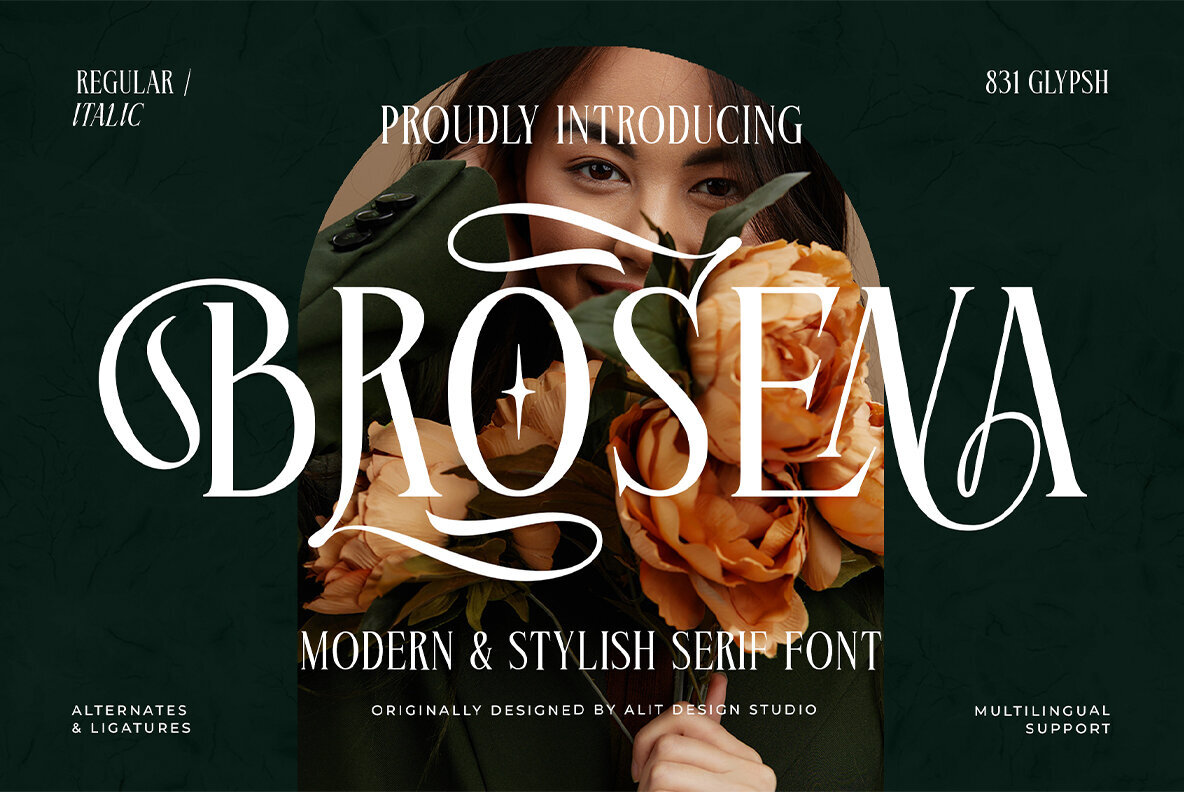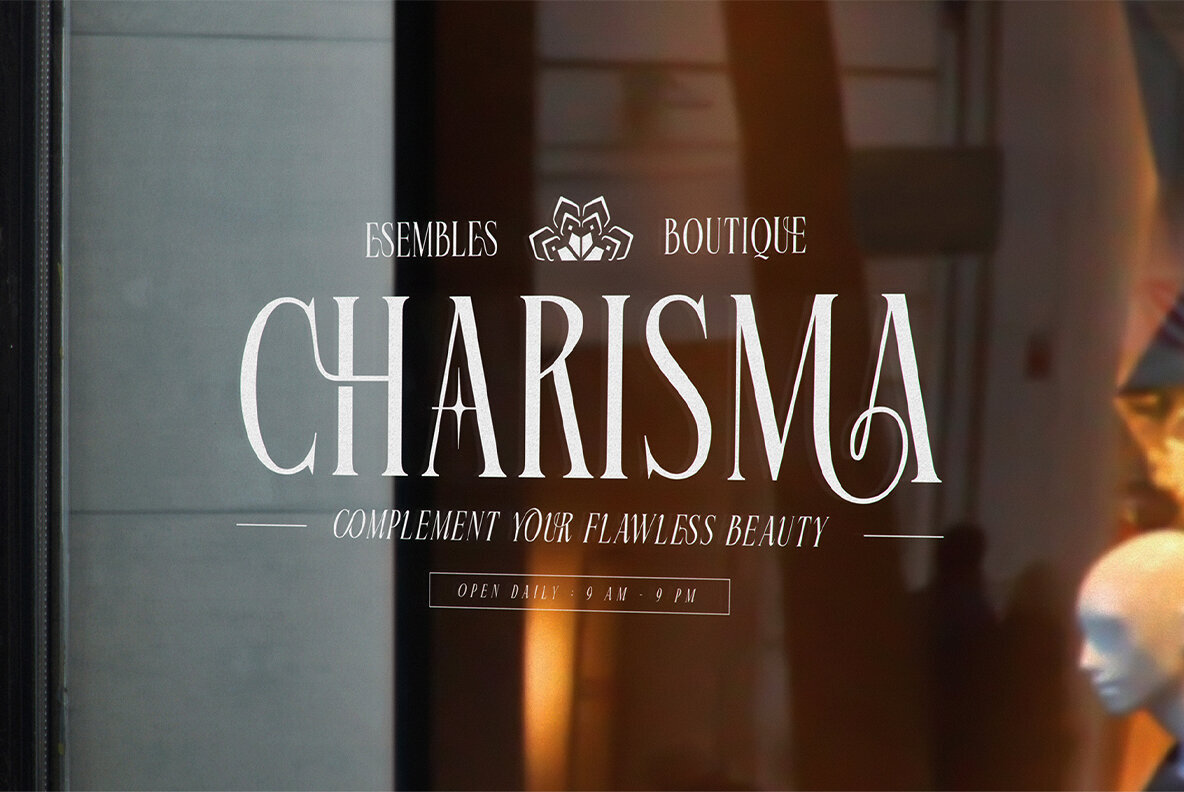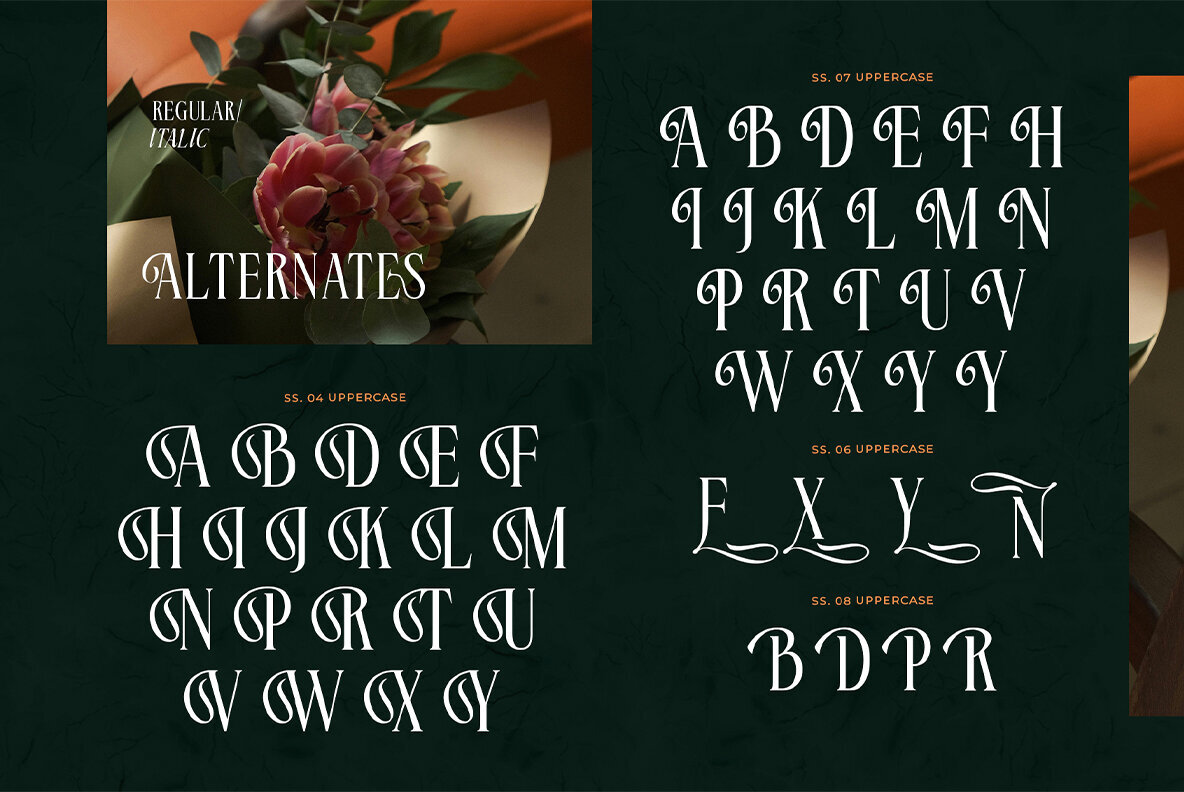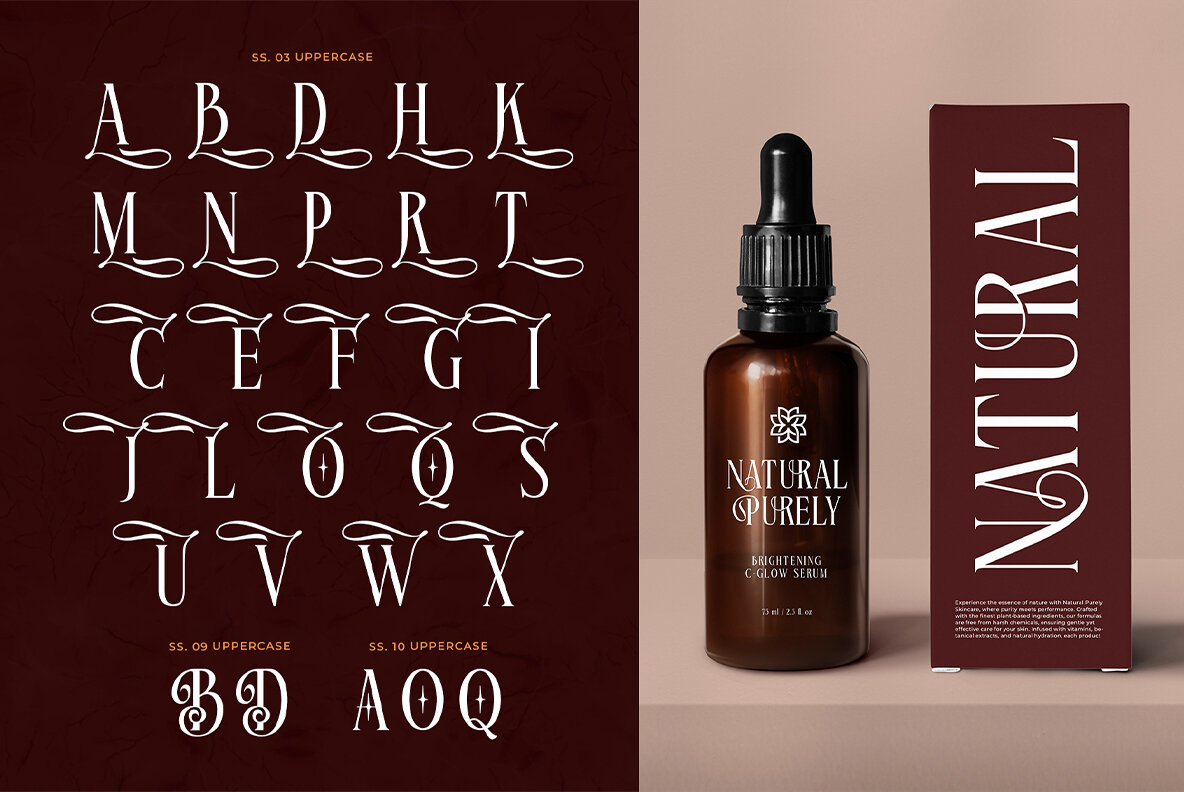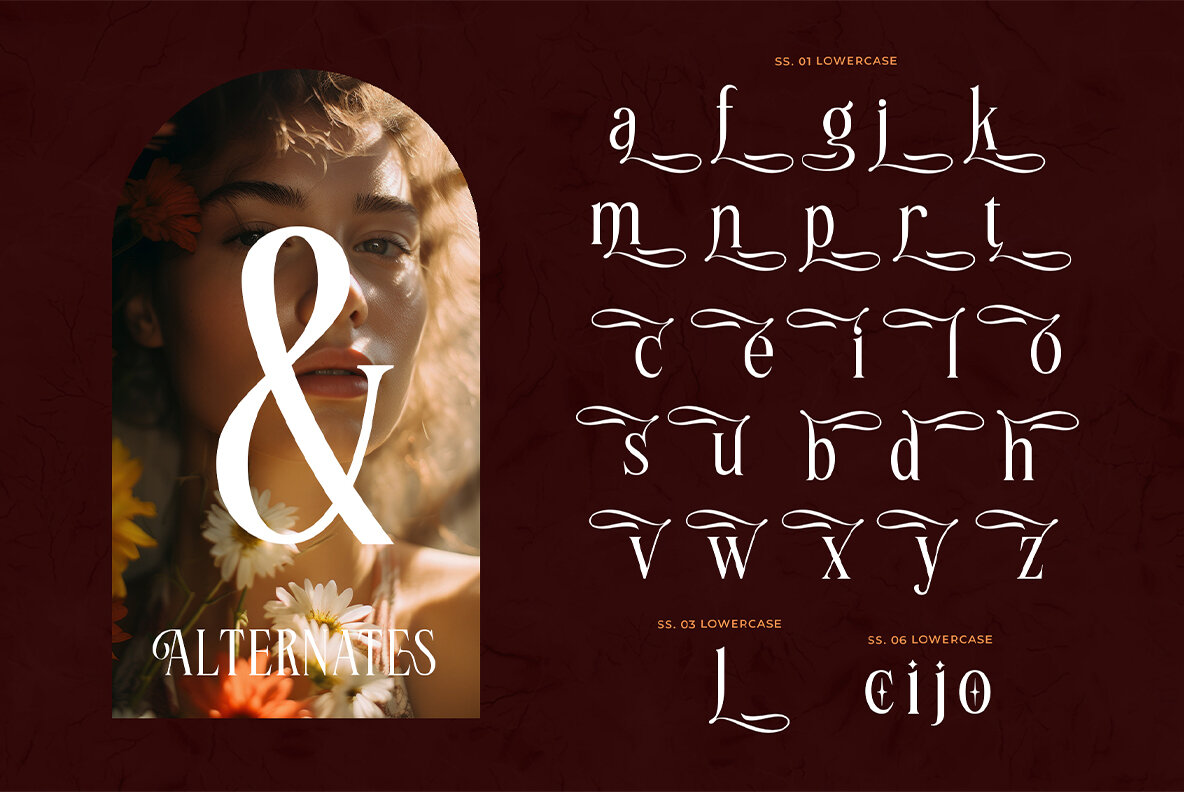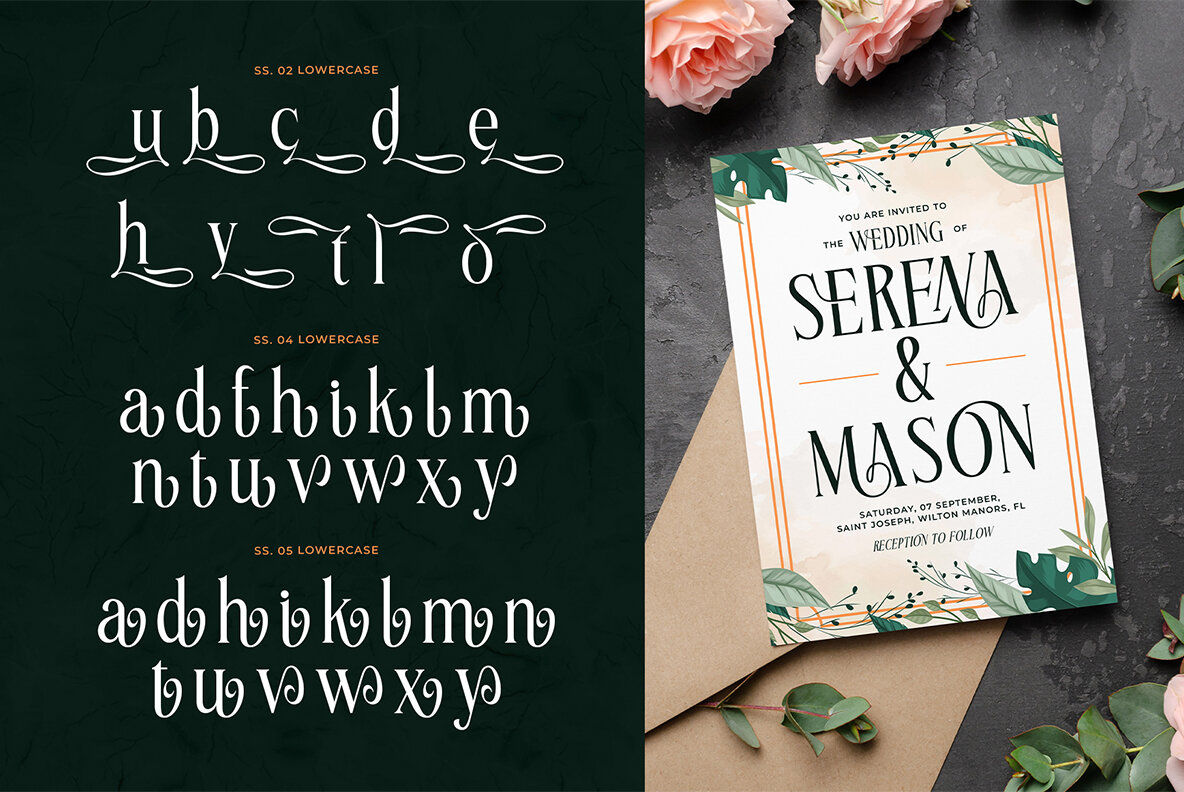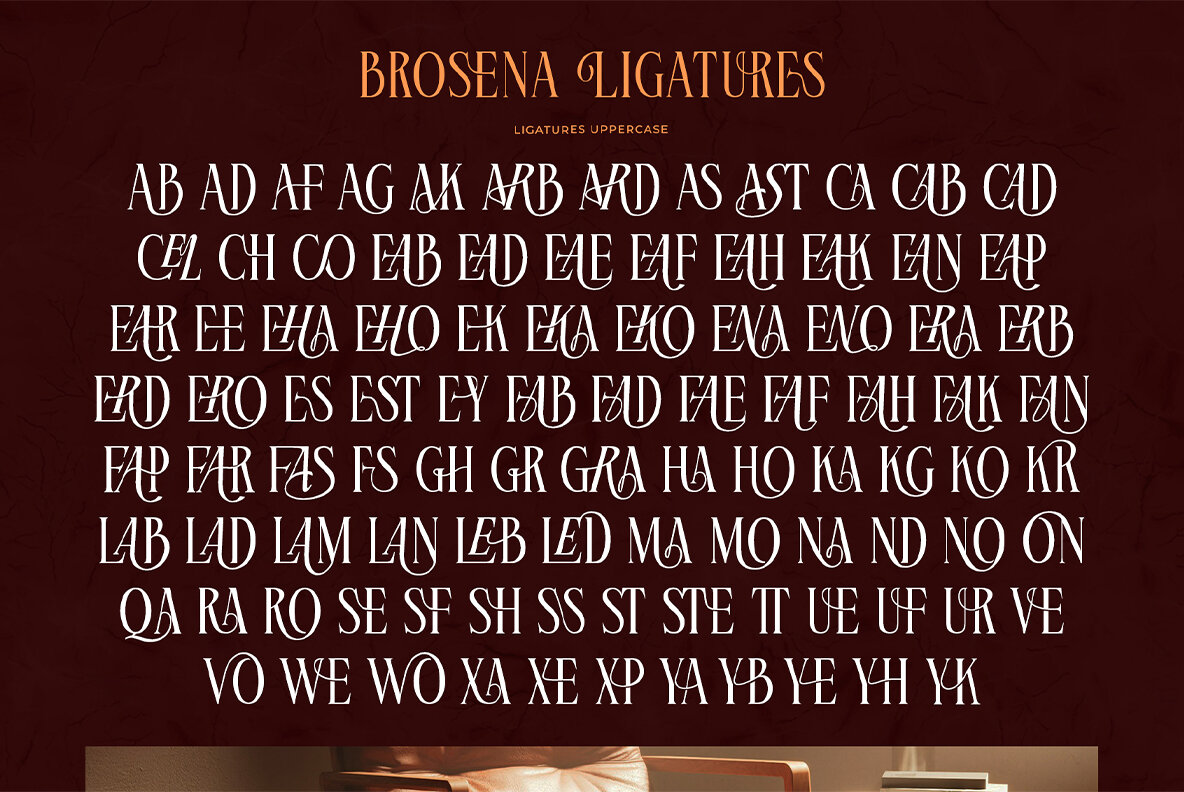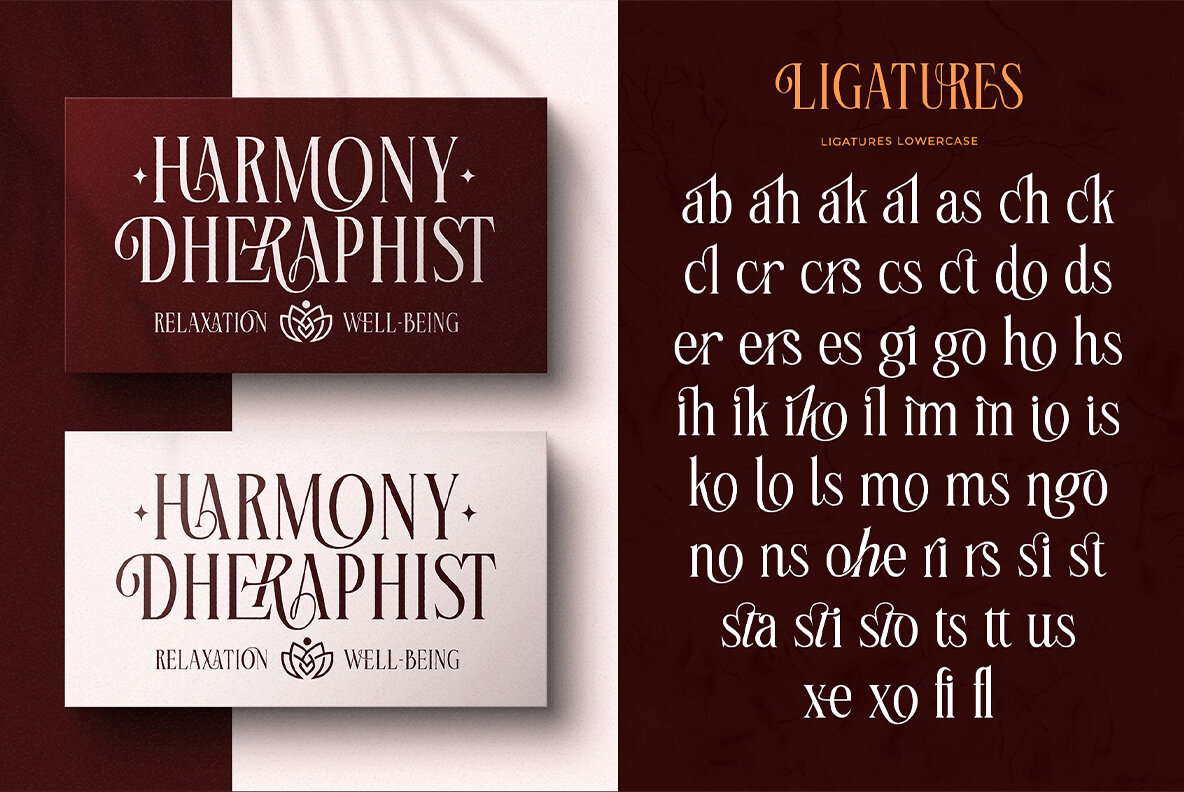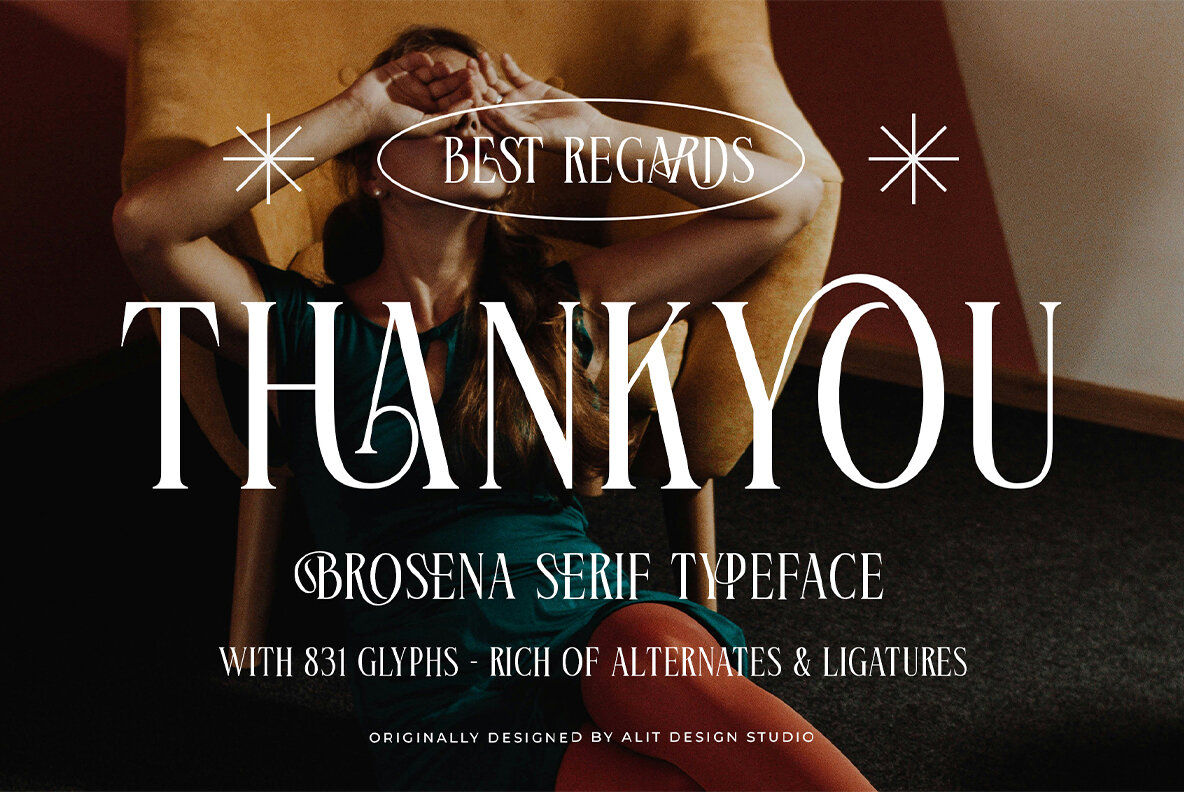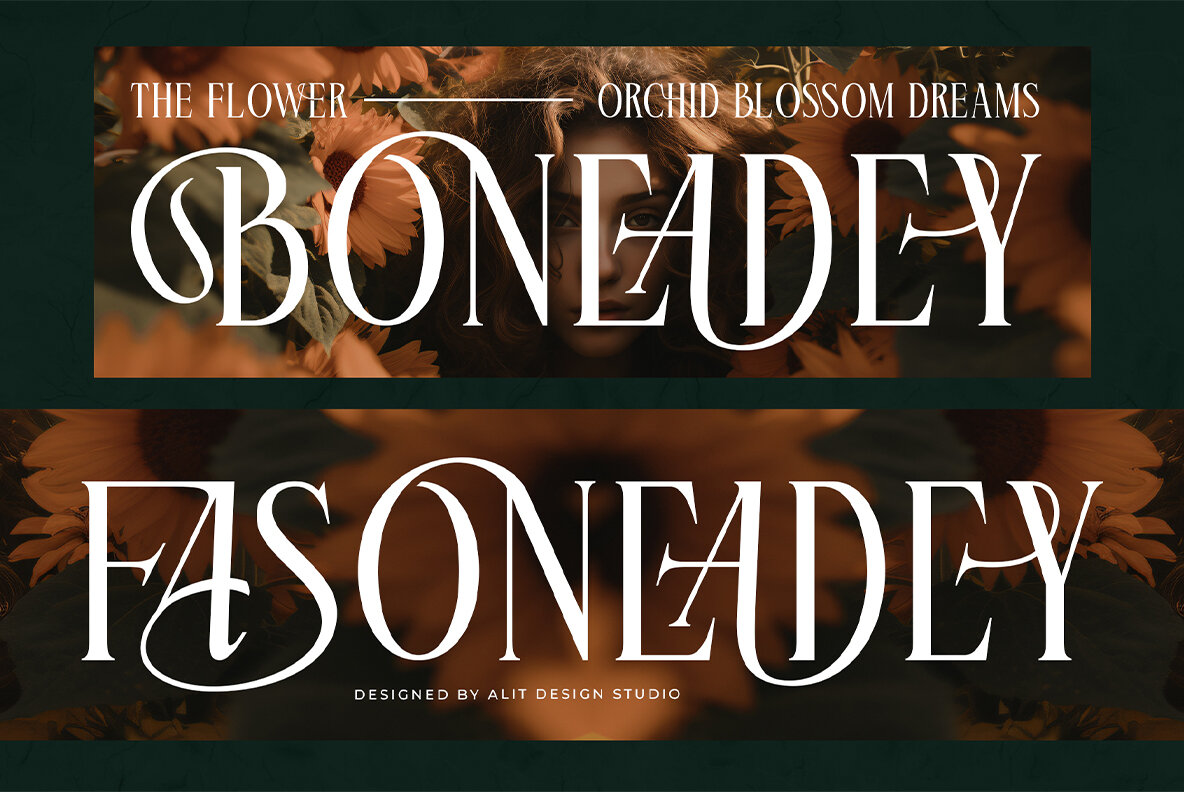
Brosena Font
Brosena Typeface offers a harmonious fusion of classic elegance and modern design, making it a versatile choice for high-end branding, editorial layouts, and creative projects that require a luxurious touch. This sophisticated serif font comes in two meticulously crafted styles—Regular and Italic—allowing designers to effortlessly mix and match according to diverse project needs. Each style is characterized by clean lines, subtle contrasts, and soft curves, making Brosena suitable for both formal applications and creative expressions.
Brosena stands out with its charming alternative characters, adding a unique personality to every project. These alternates provide endless opportunities for experimentation, ensuring expressive and distinctive designs. Whether the objective is a minimal modern aesthetic or a decorative ornate appearance, Brosena rises to the occasion. As illustrated in the preview images, it excels in various applications such as luxury branding for logos and packaging, editorial designs for magazines and book covers, special occasions like wedding invitations, and artistic expressions in posters and social media graphics.
Features of Brosena Typeface include:
- Elegant serif typeface with a modern aesthetic
- Two character sets: Regular and Italic
- Includes charming alternatives for enhanced customization
- Designed for luxury, style, and versatility
- Exceptional readability for both print and digital media
Brosena adapts effortlessly to any design project, leaving a lasting impression with its balance of refinement and charm.